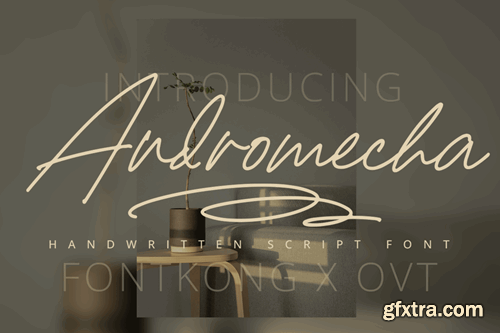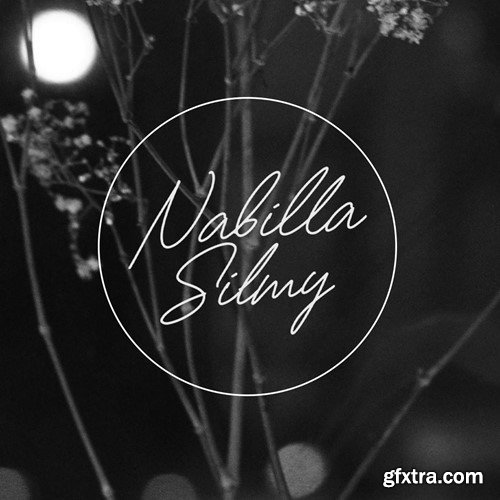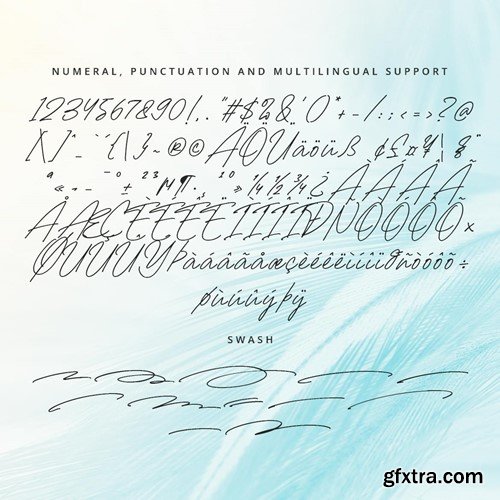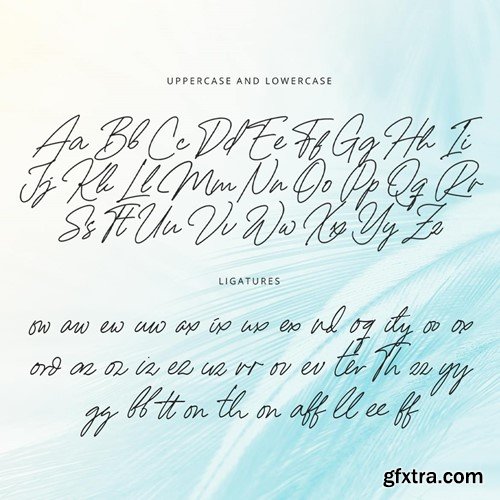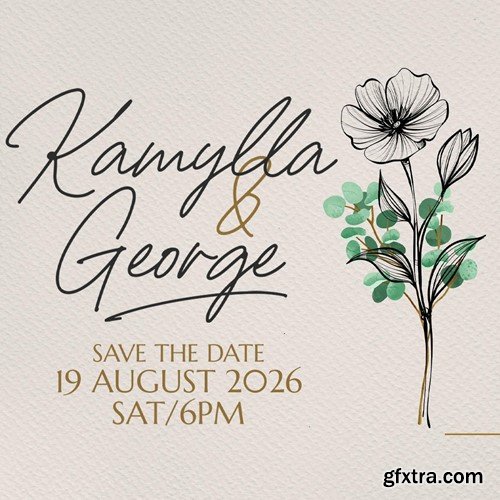
Andromecha - A Handwritten Script Font Andromecha is a charming and elegant handwritten script font designed to add a personal and sophisticated touch to your design projects. With its flowing lines and natural letterforms, Andromecha is perfect for wedding invitations, elegant branding, heartfelt letters, and stylish logos. This font captures the essence of hand-drawn beauty, ensuring your work stands out with a touch of authenticity and grace. You will receive the font files in TTF, OTF, and WOFF formats Crafted with attention to detail, Andromecha features smooth and fluid characters that offer excellent readability and visual appeal. Its graceful design makes it ideal for both headlines and body text, providing a cohesive and polished look across all your visual communications. The font’s versatility allows it to seamlessly integrate into various design contexts, from digital platforms to printed materials. Elevate your design projects with Andromecha, a font that embodies the perfect blend of personal charm and elegance. Its unique style and adaptability make it an essential addition to any designer’s toolkit for creating refined and captivating visuals. Enhance your work with Andromecha and experience the allure of handwritten script typography.